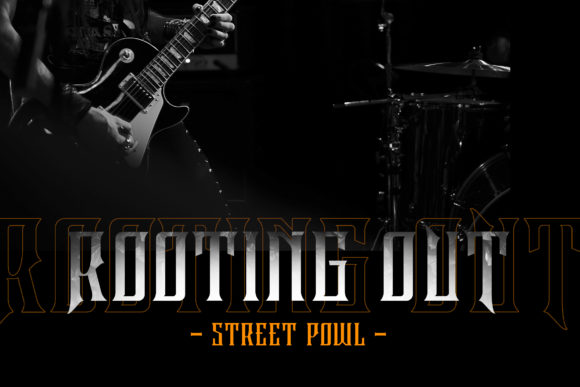
Northern Font
Northern is an amazing gothic blackletter. It will add a unique and stunning look to your designs. It is perfect for logos, branding, advertising, Halloween projects, gothic designs, apparel, tattoos, and more!